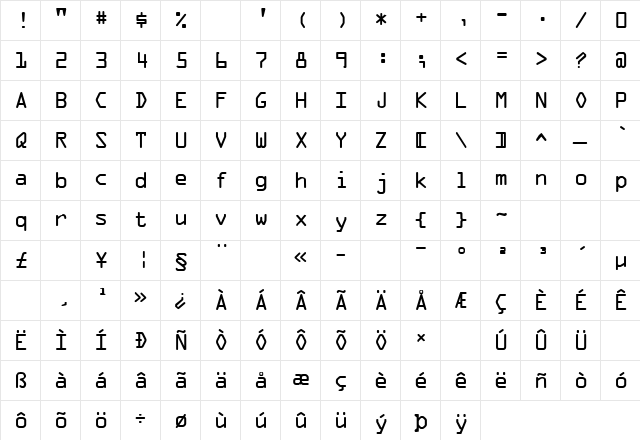
STALKER1 Regular
Design Context for STALKER1 Typeface
STALKER1 offers clean, dependable letterforms without strong stylistic allegiance, making it a practical choice for designers who need flexibility.